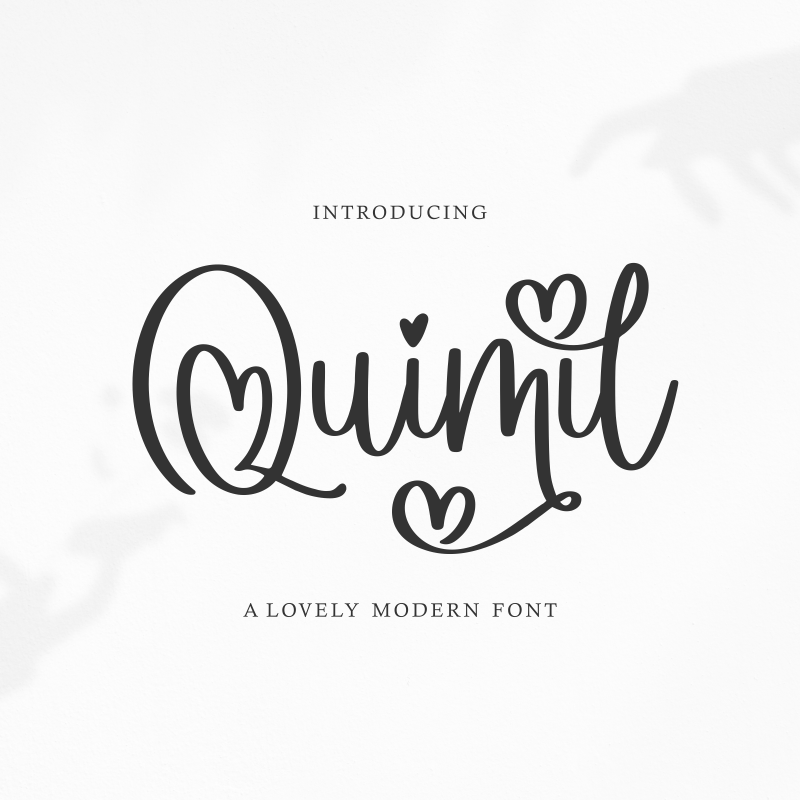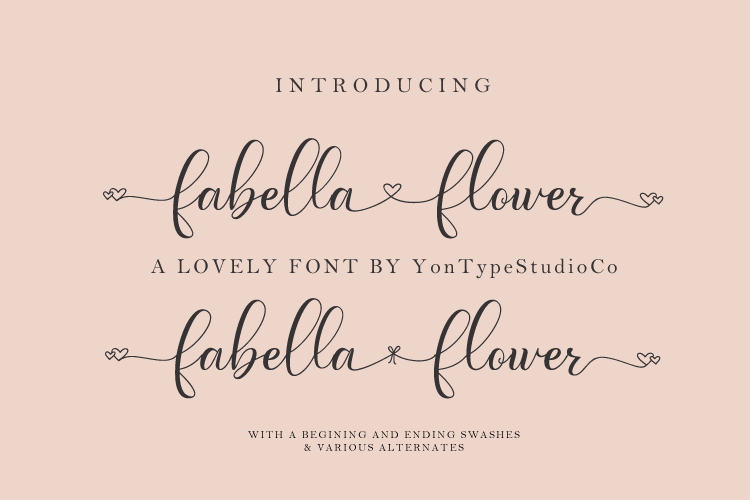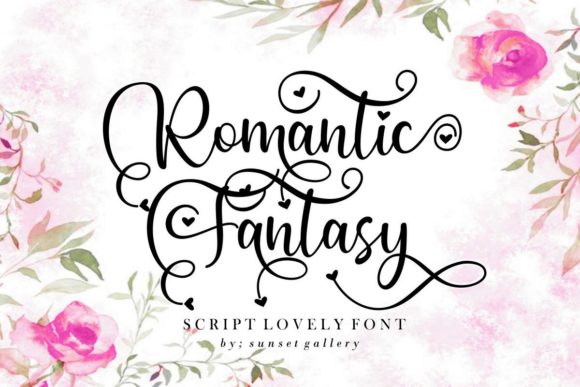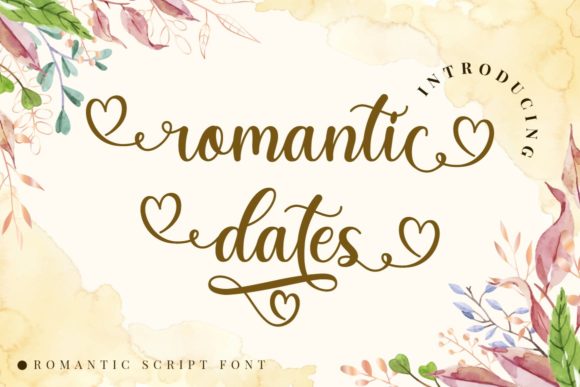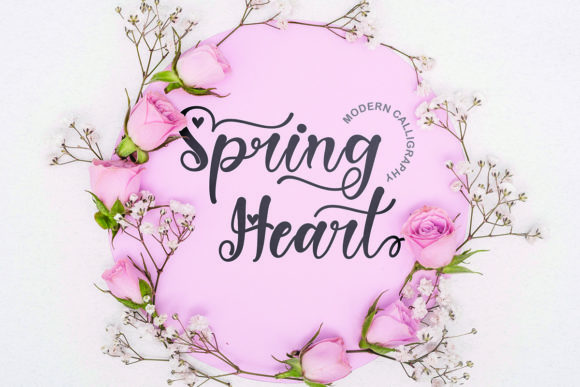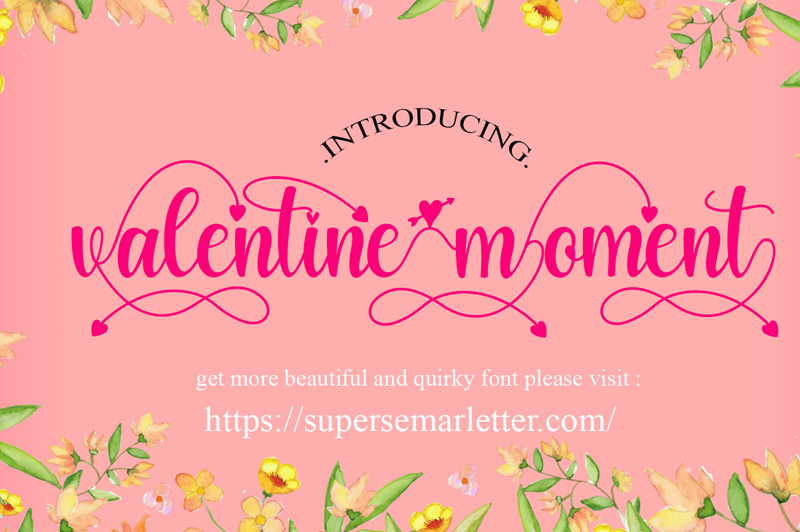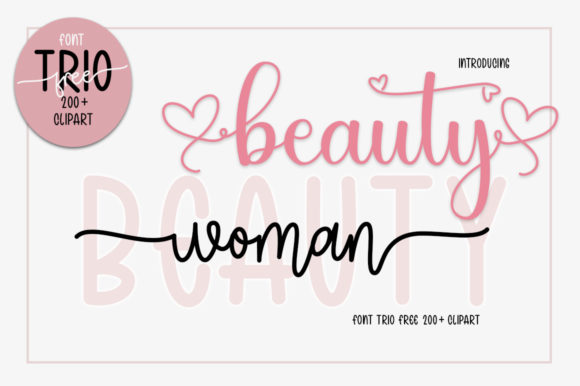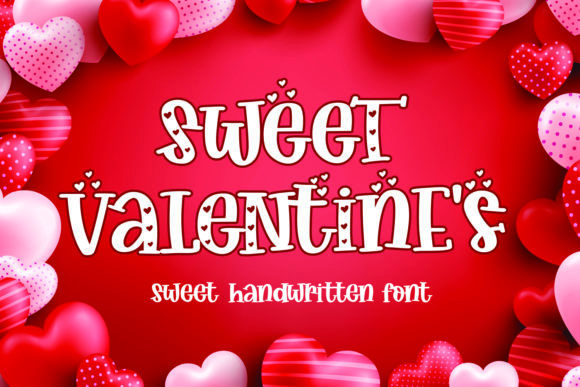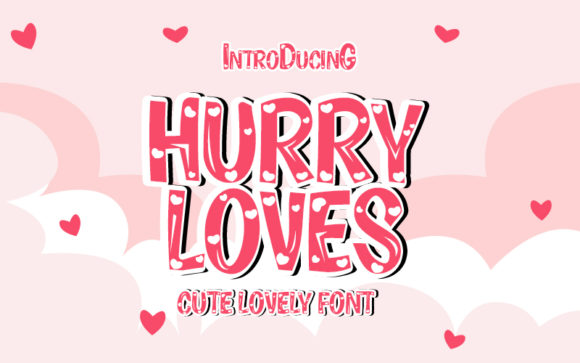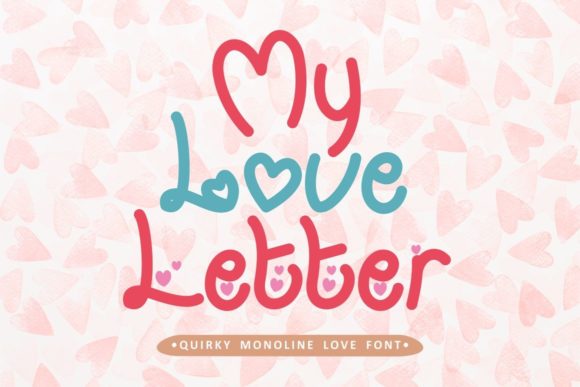
We’ve got you covered with our list of free fonts that are perfect for creating Valentine’s day cards!
From playful and romantic to bold and sexy, there’s a font for every type of Valentine out there. So, whether you’re designing a card for your significant other, your best friend, or your child’s teacher, keep scrolling.
10 Script Fonts for Valentine’s Day
If you’re looking for the perfect font to add a touch of romance to your Valentine’s Day projects, look no further! These 10 amazing script fonts are perfect for creating beautiful, handmade cards, invitations, and other holiday décor.
So grab your pen and paper (or your laptop and design program), and get ready to fall in love with these 10 script fonts for Valentine’s Day!
10 Display Fonts for Valentine’s Day
This Valentine’s Day, ditch the standard Times New Roman and switch things up with one of these ten unique and romantic display fonts.
We’ve rounded up the best display fonts to help make your Valentine’s Day cards, letters, and other festive designs pretty and sweet.
10 Decorative Fonts for Valentine’s Day
Valentine’s Day is a great time to show your loved ones how much you care. One way to do this is by using decorative fonts to add a personal touch to your cards, letters, and other holiday messages. Here are 10 great decorative fonts to use for Valentine’s Day projects: